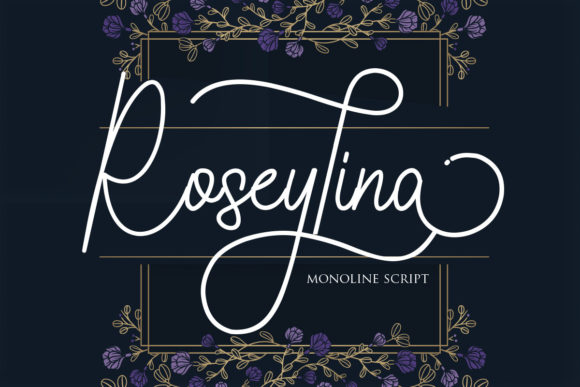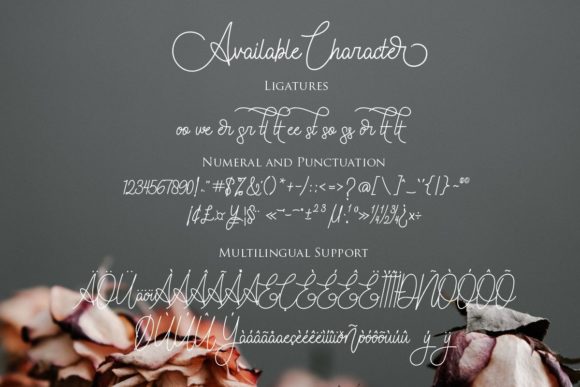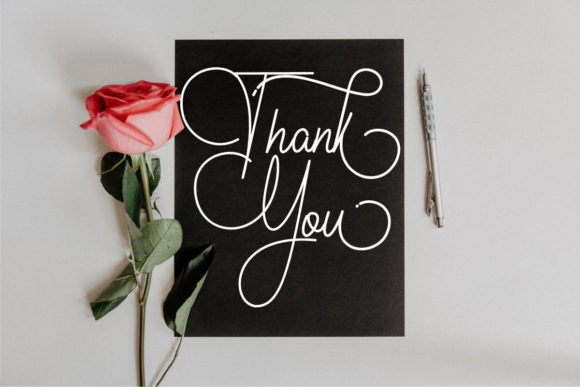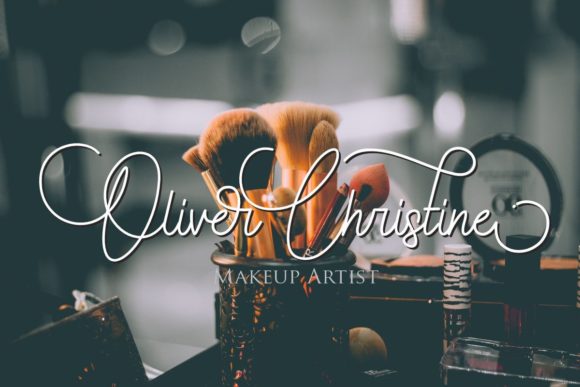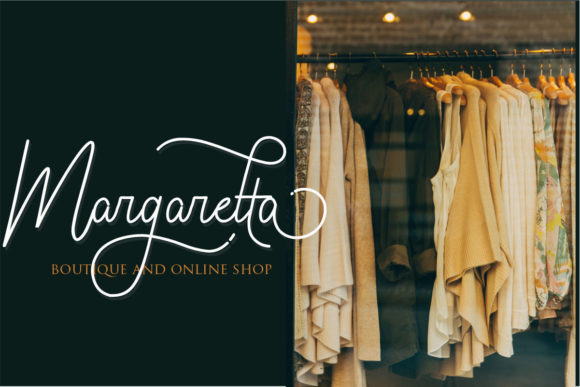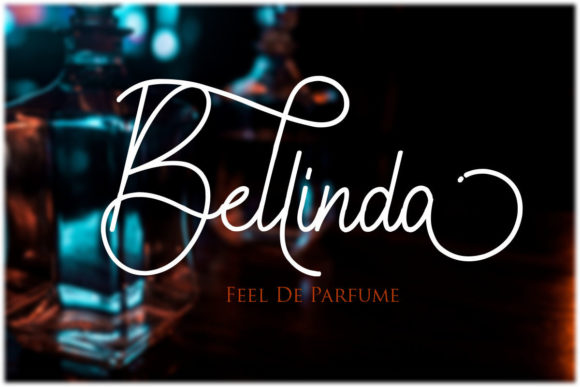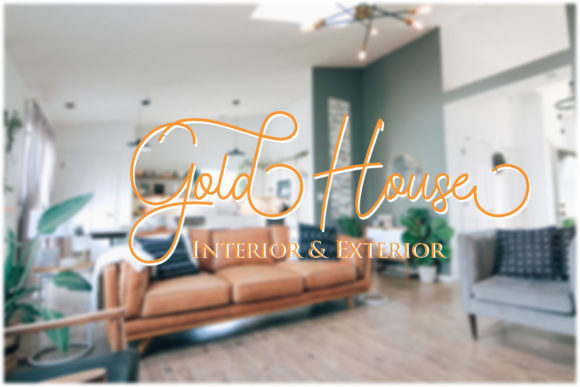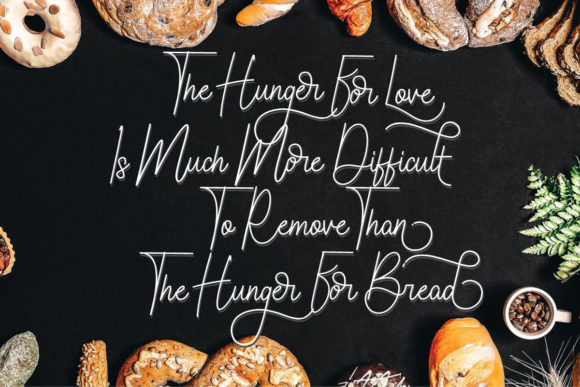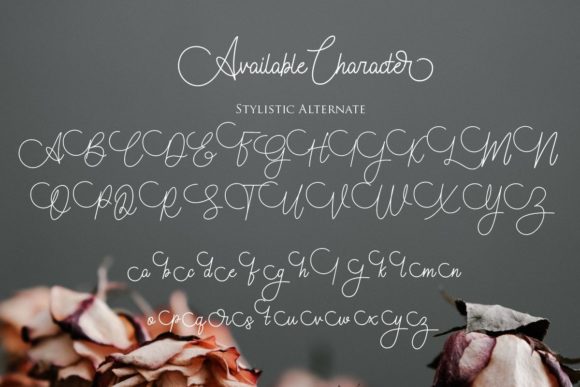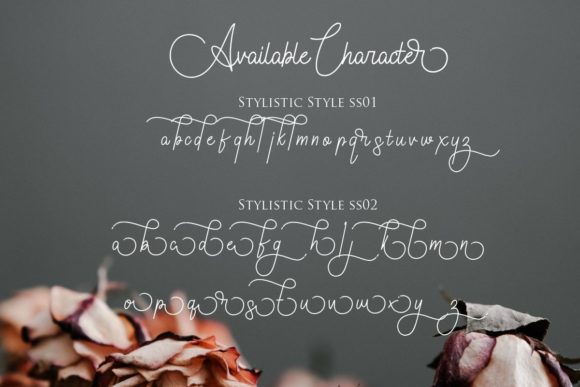
Roseylina Font
About Roseylina Font
Roseylina is a stylish and delicate script font that exudes elegance and sophistication. With its clean, thin, and smooth letterforms, this font adds a touch of refinement to any design it is applied to. Whether you’re working on branding, invitations, stationery, logos, or other creative projects, Roseylina is sure to make a lasting impression.
The font’s clean and thin strokes create a sense of grace and beauty, making it perfect for projects that require an elegant and sophisticated look. Its smooth curves and balanced letterforms contribute to its overall aesthetic appeal, giving it a modern and chic vibe.
Roseylina’s versatility allows it to adapt to various design styles and concepts. Whether you’re going for a minimalistic and contemporary look or a more elaborate and decorative approach, this font can effortlessly elevate your designs. Its understated elegance adds a touch of class and sophistication to any project, making it suitable for both formal and informal occasions.
One of the standout features of Roseylina is its PUA encoding, which grants easy access to all of the font’s glyphs and swashes. This means you can effortlessly customize and enhance your designs by incorporating alternate characters, ligatures, and decorative elements. The versatility and freedom offered by the font’s PUA encoding allows you to create unique and eye-catching compositions that truly stand out.
Whether you’re designing wedding invitations, greeting cards, logos, or any other project that demands a refined and delicate touch, Roseylina is the perfect choice. Its stylish and clean design, combined with its smooth and thin letterforms, will captivate your audience and leave a lasting impression.
So, unleash your creativity and explore the endless possibilities that Roseylina offers. Let its stylish and delicate script breathe life into your designs and elevate them to new heights of elegance and sophistication. With Roseylina, you can create stunning visuals that truly reflect your unique style and vision.